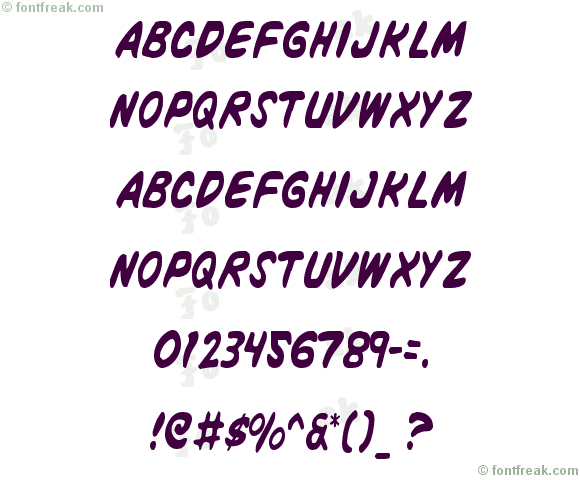
Vigilante Notes
Vigilante Notes Condensed
Vigilante Notes Shadow
Vigilante Notes Light
About Vigilante Notes
Vigilante Notes is a striking display font designed by Daniel Zadorozny, categorized as a decorative typeface. Launched in 2002, this font captures attention with its unique condensed style and shadowed appearance, making it an ideal choice for projects requiring bold visual impact. The font features a medium stroke weight characterized by a slight contrast that adds depth without overwhelming the viewer. Its spacing is well-balanced, allowing for easy readability while maintaining a playful yet assertive aesthetic.
This versatile font excels in a variety of use cases, making it a favorite among graphic designers and small business owners. For instance, Vigilante Notes is perfect for movie posters, where its dynamic appearance can effectively convey excitement and energy. Similarly, it can enhance restaurant menus, providing an inviting and contemporary feel that draws customers in. Additionally, this font works wonderfully for event promotions, such as festivals or parties, where a lively and engaging design is essential. Moreover, it can elevate branding materials for creative businesses, as its unique style helps to establish a memorable identity.
What sets Vigilante Notes apart is its ability to blend artistic flair with practical usability. Its bold, shadowed design not only captures attention but also provides a sense of movement and vitality. By incorporating this font into your projects, you can ensure a captivating visual experience that stands out in today's competitive landscape. Don't miss the opportunity to explore the Vigilante Notes font free download, and let your creativity soar.